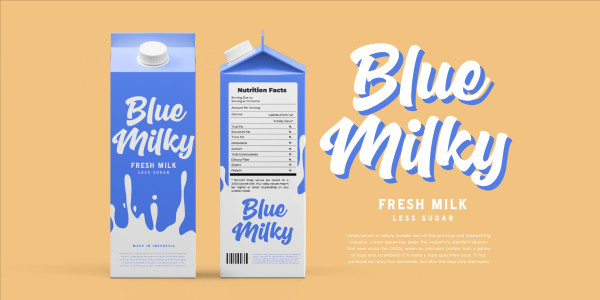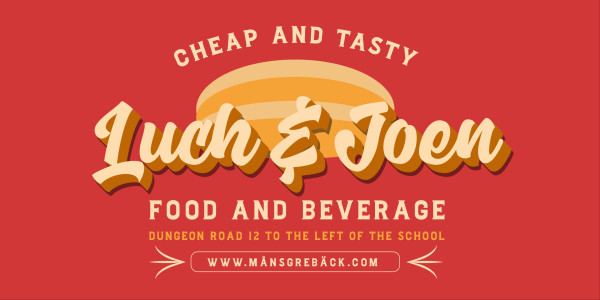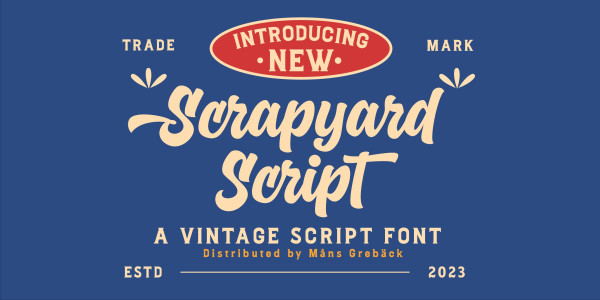
Scrapyard Script Font
Scrapyard Script Font, is a bold, heavy font with a cool and funky vibe that captures the essence of street style and urban culture.
Use multiple _ ¤ # to make swashes of different lengths.
Example: Rockstar____